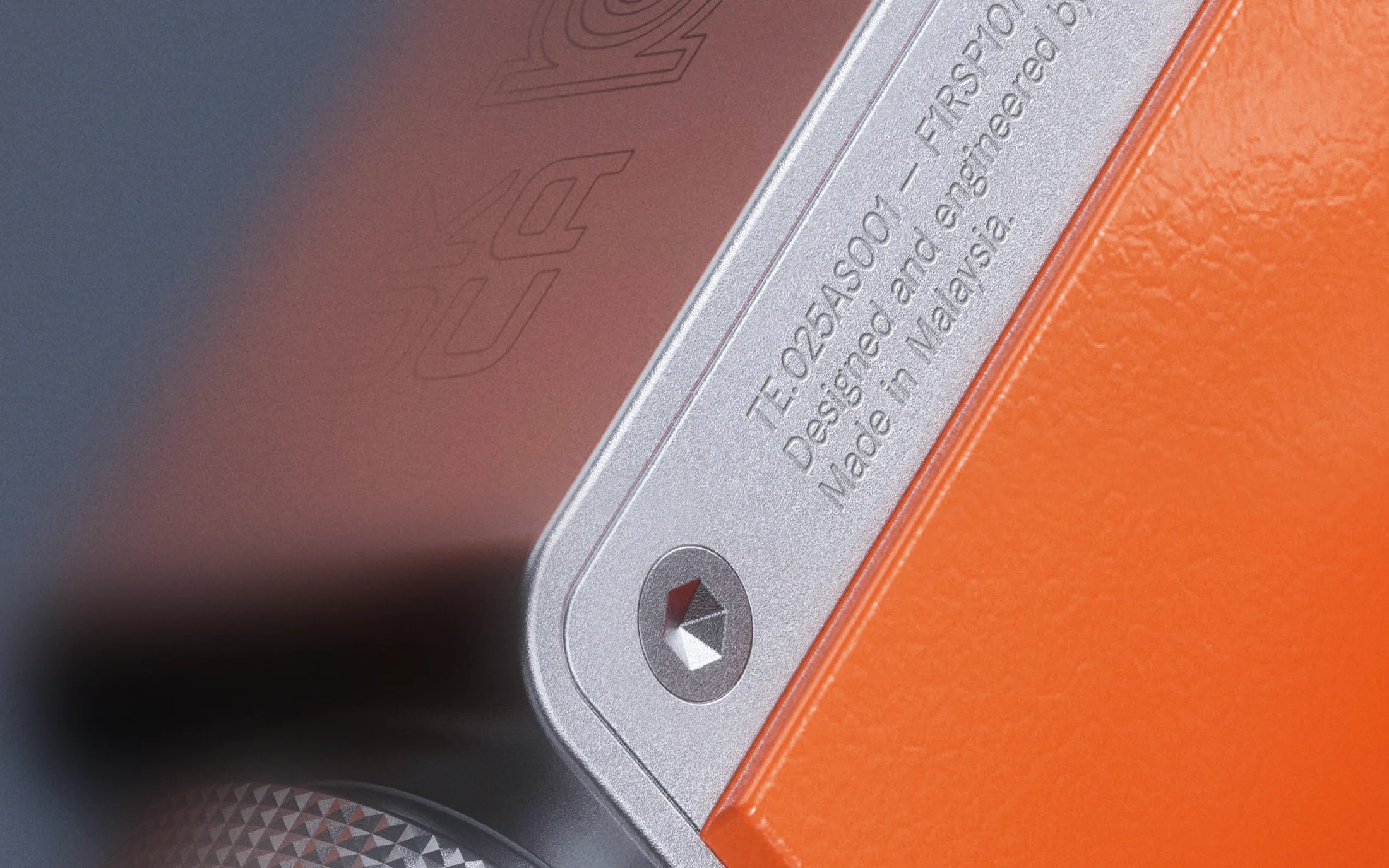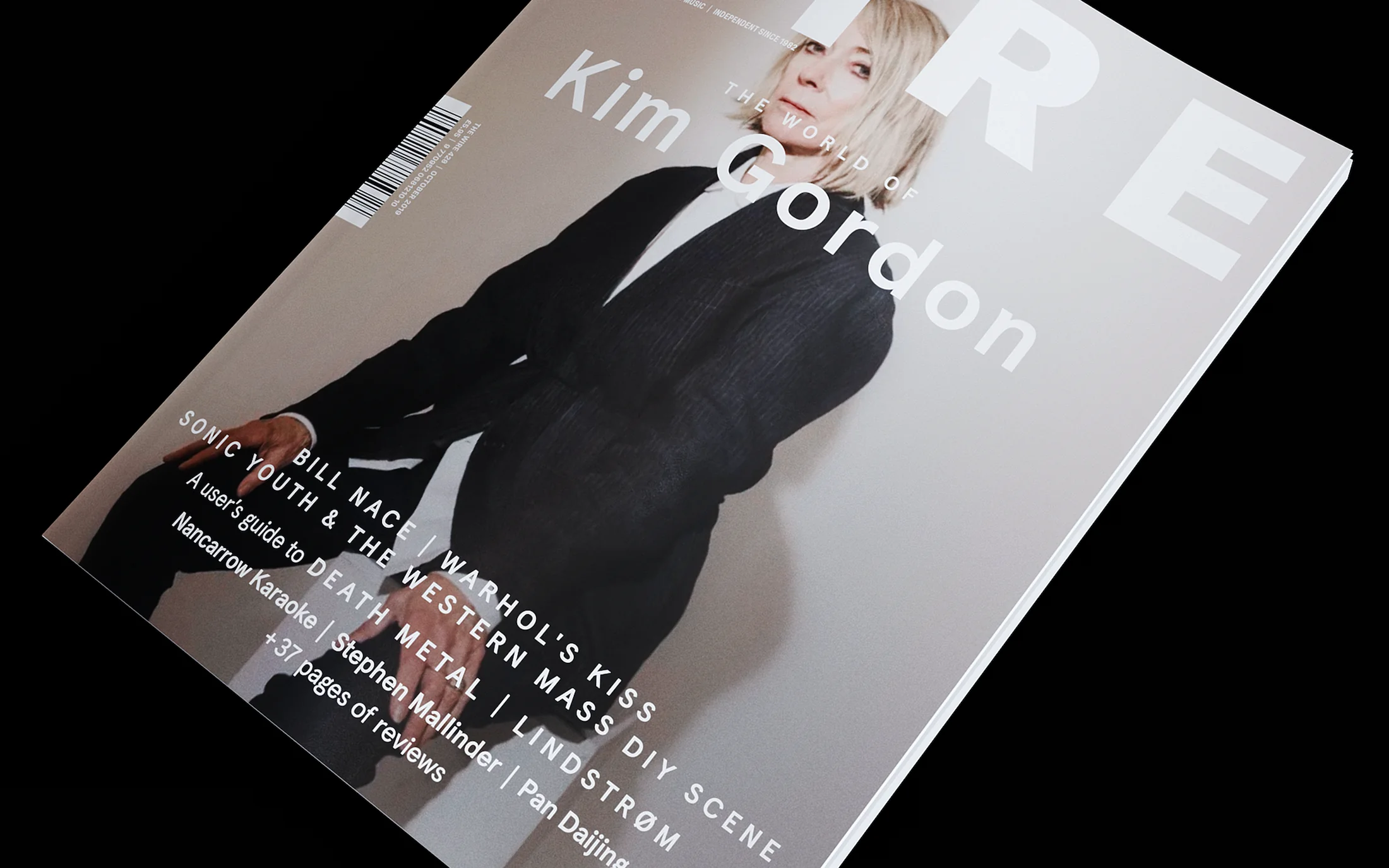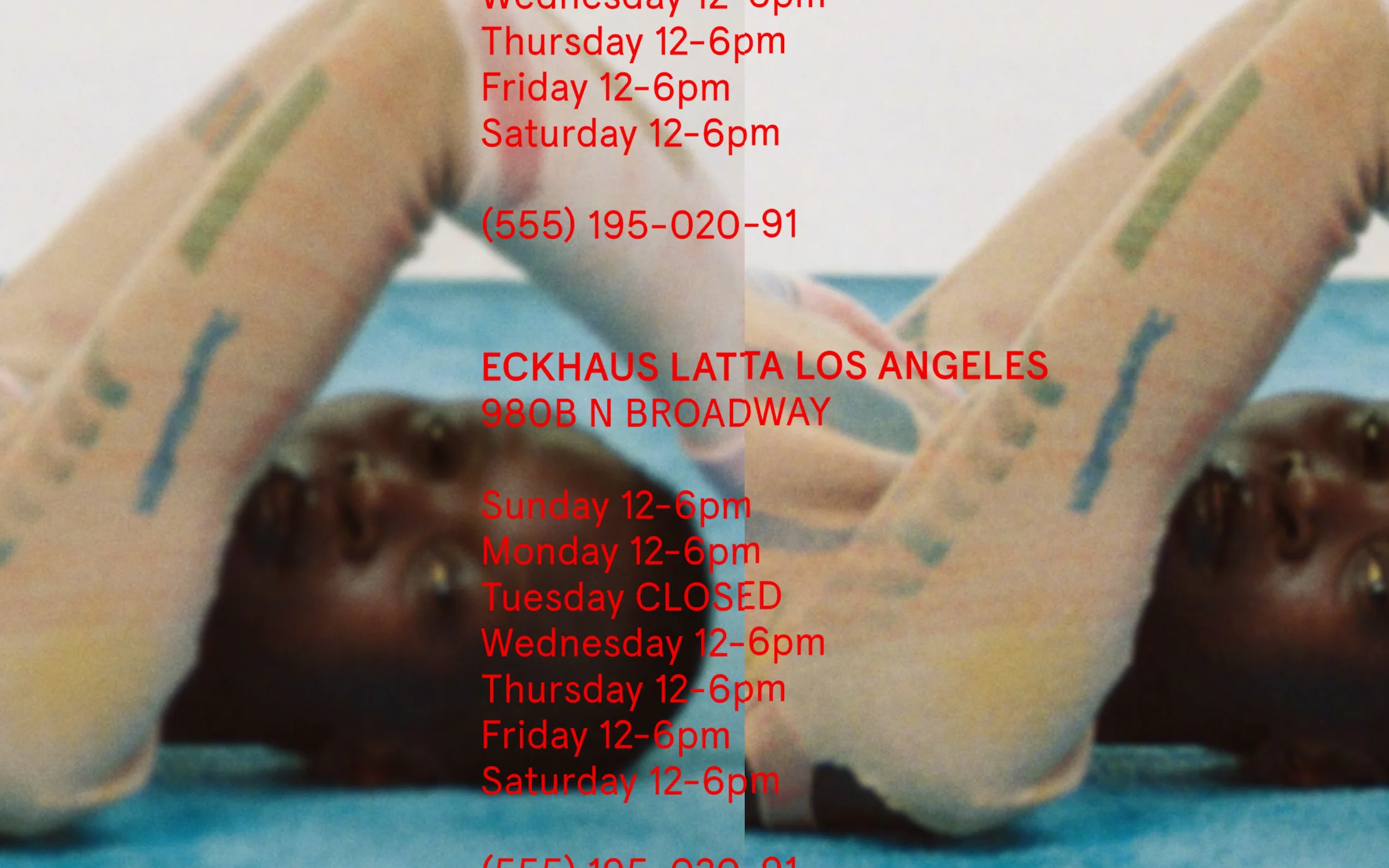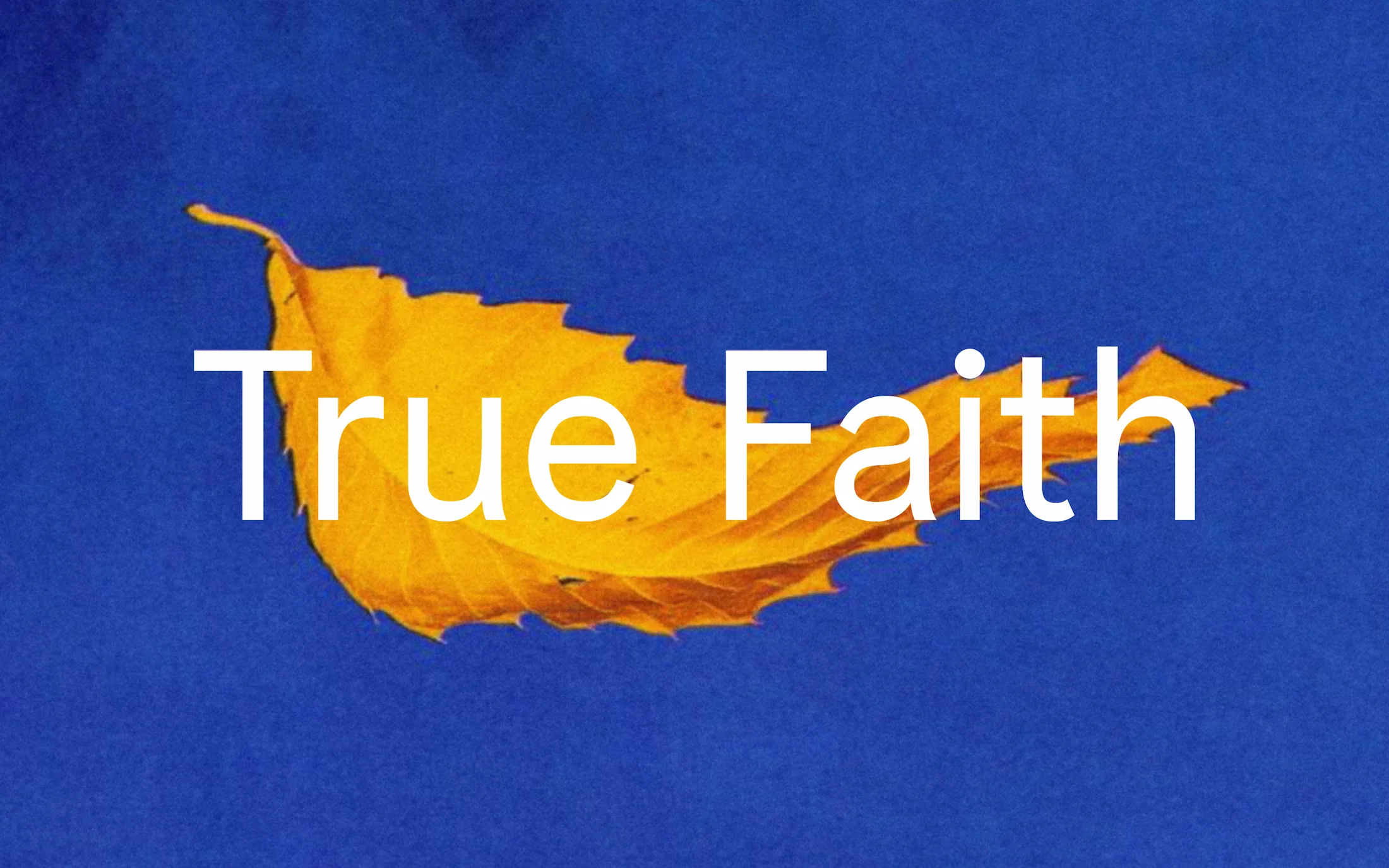
The tiny terror, the little trouble girl. Nina Sans is a workhorse family designed to have a big personality at any scale. Maximizing the playfulness and lightness that humanist typefaces like Franklin Gothic can bring (almost accidentally), while still achieving a technical and rhythmic quality to look as precise as it needs to.